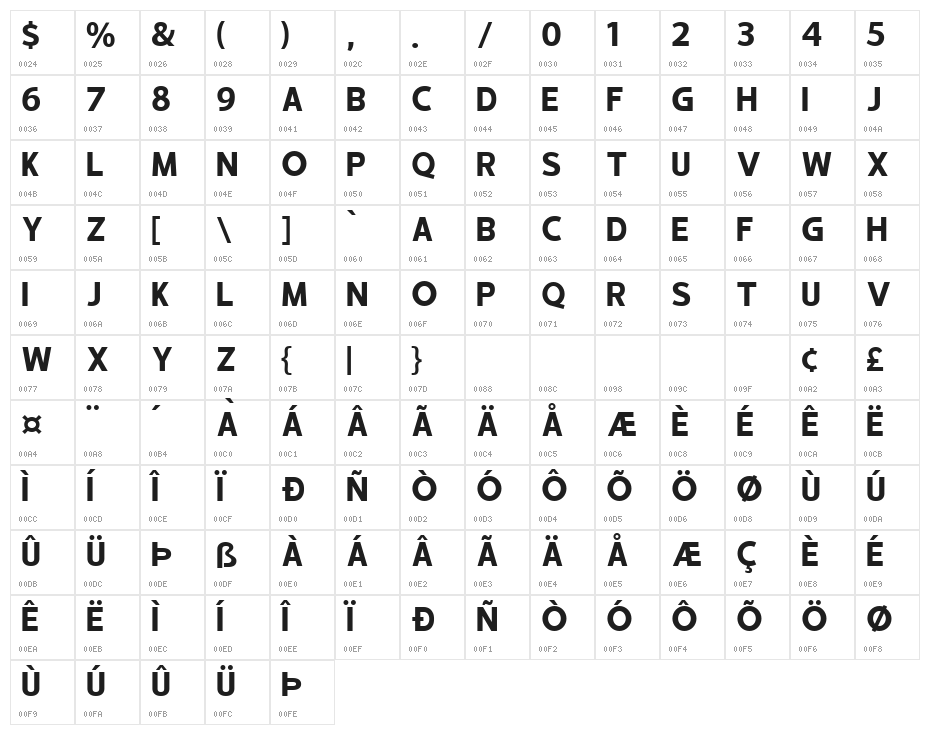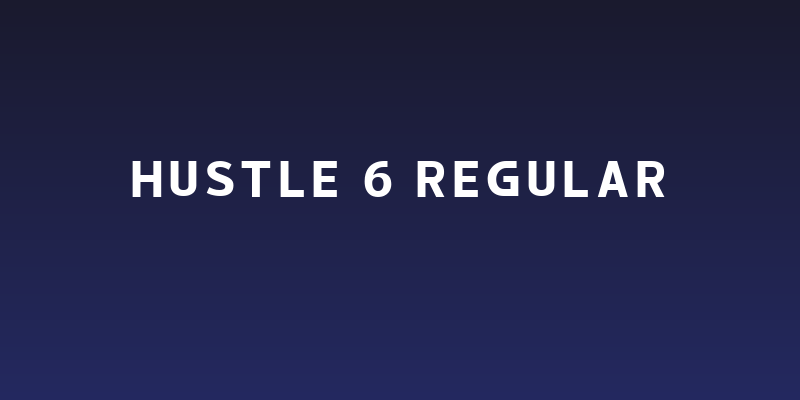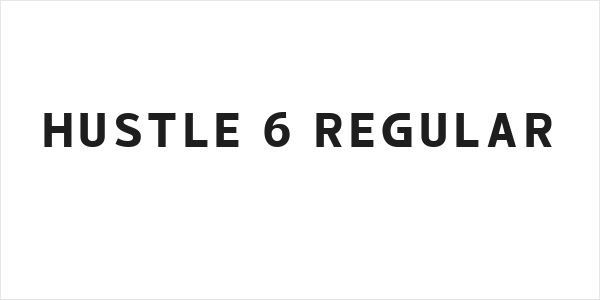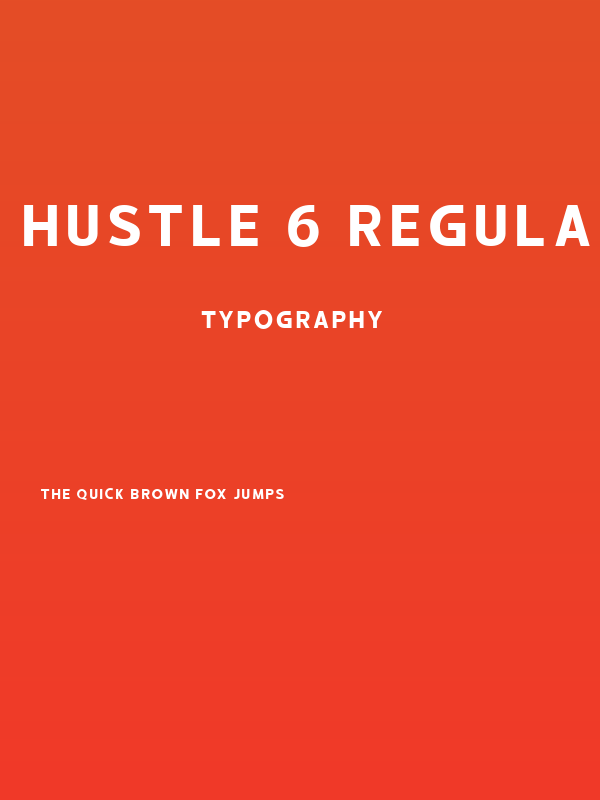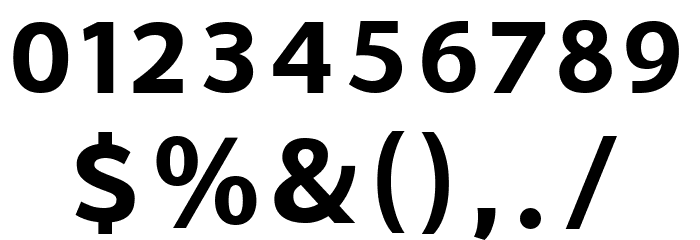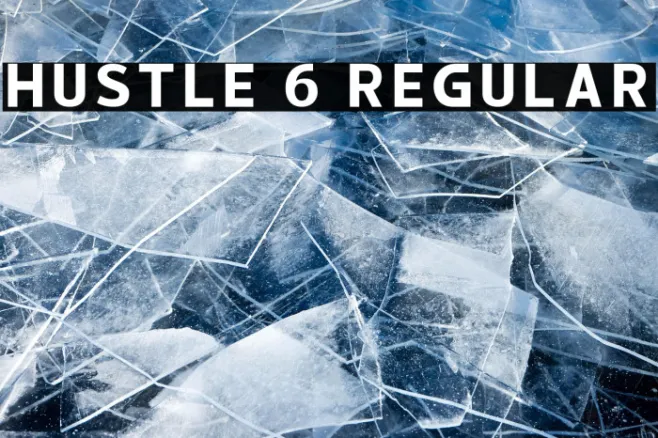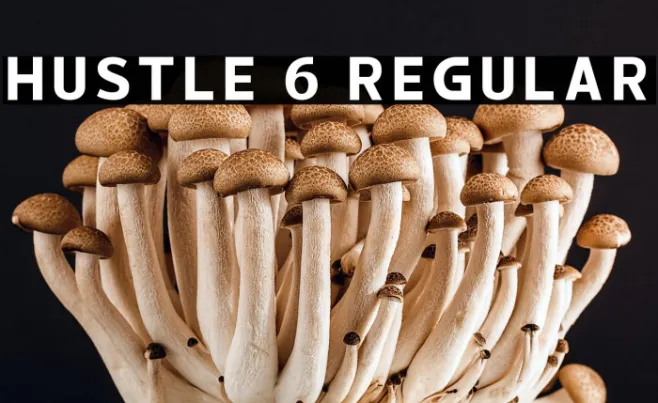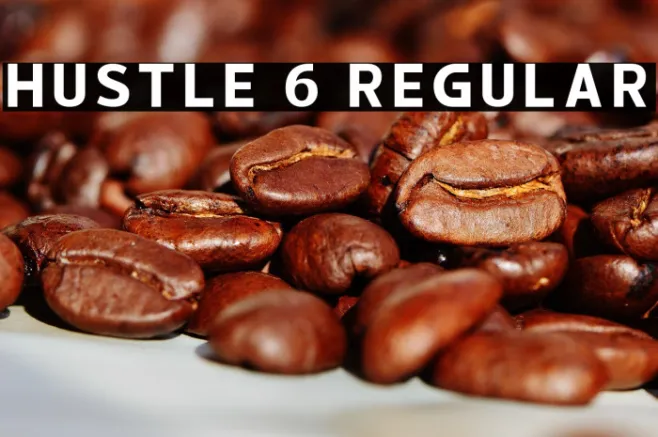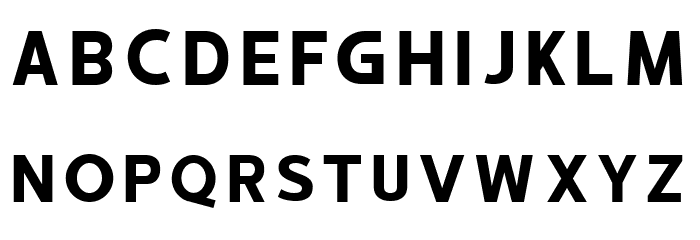
hustle 6 Regular Font
hustle 6 Regular Description
This font is a bold, sans-serif typeface characterized by its clean and modern appearance. The letters are evenly spaced with a consistent stroke width, providing a uniform and balanced look. The uppercase and lowercase letters maintain a similar width, contributing to a cohesive design. The numerals are clear and legible, matching the style of the alphabetic characters. Special characters are designed with the same boldness and clarity, ensuring they integrate seamlessly with the text. This font is versatile, suitable for various design needs where readability and impact are essential.
| Proposed Projects | Ideal for branding, advertising, headlines, and digital content where a strong, modern presence is desired. |